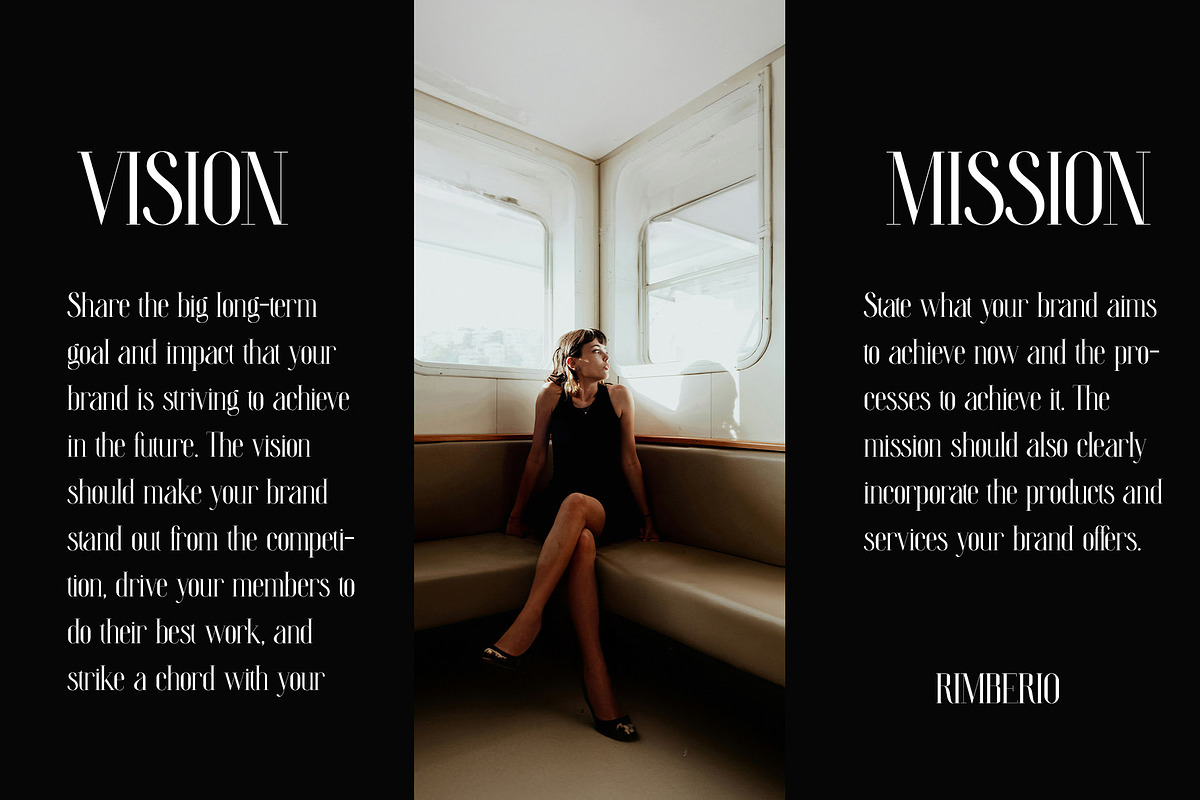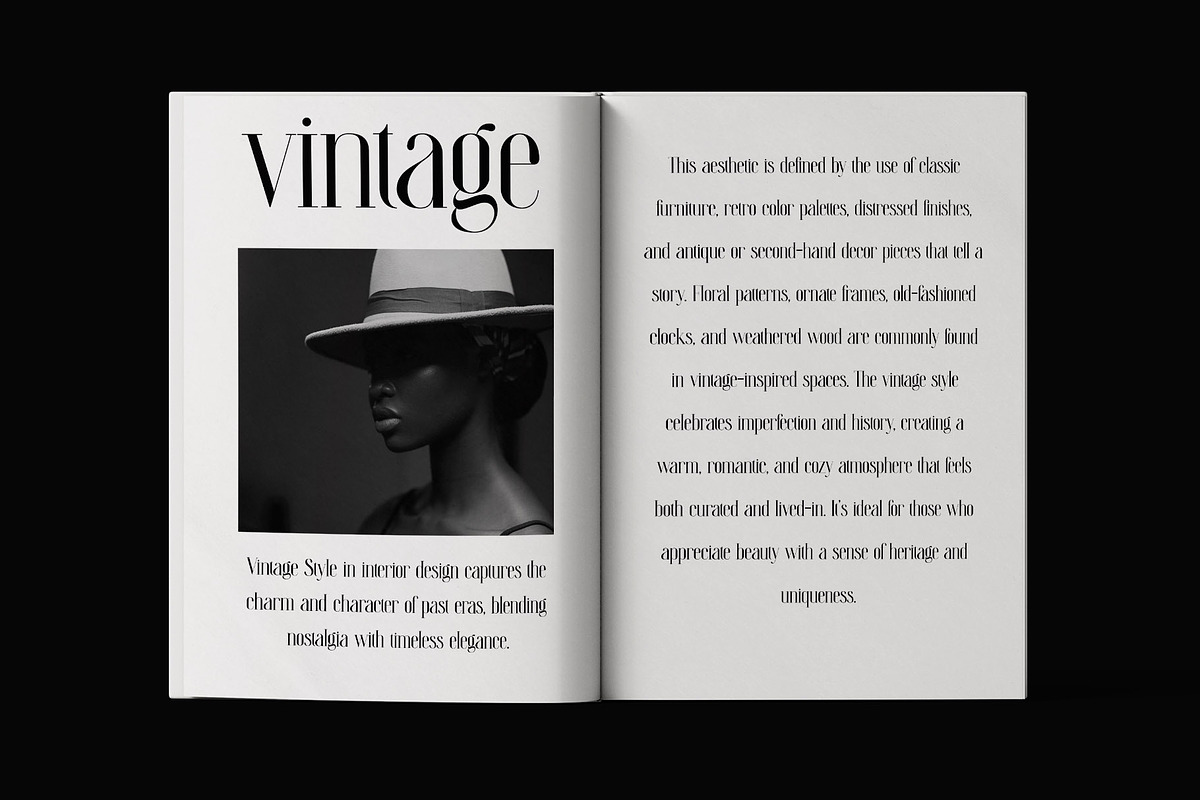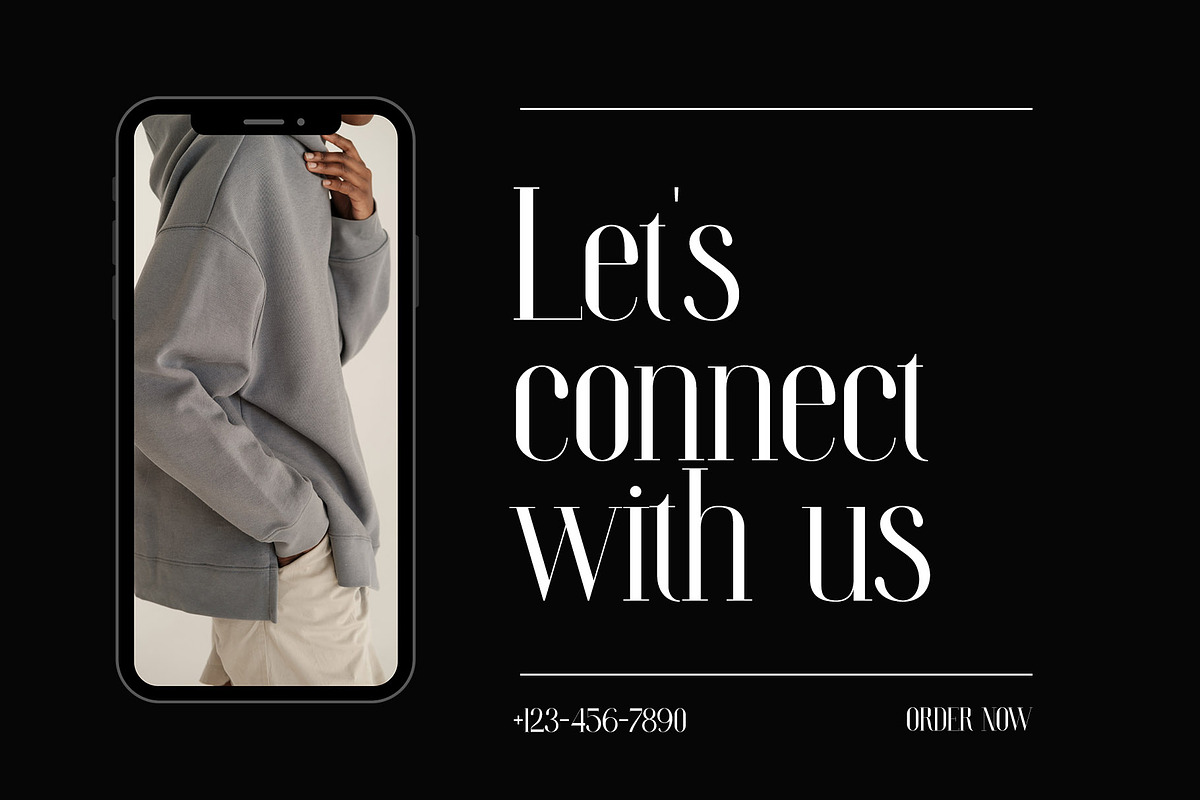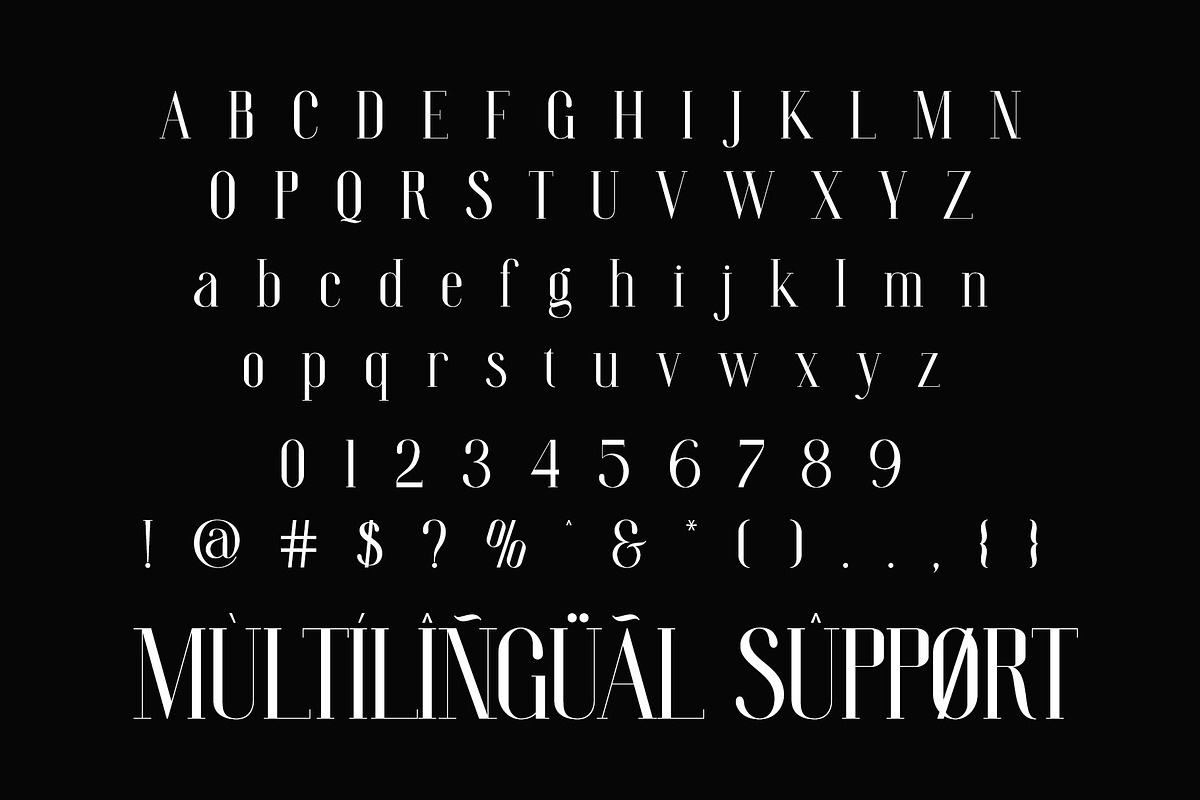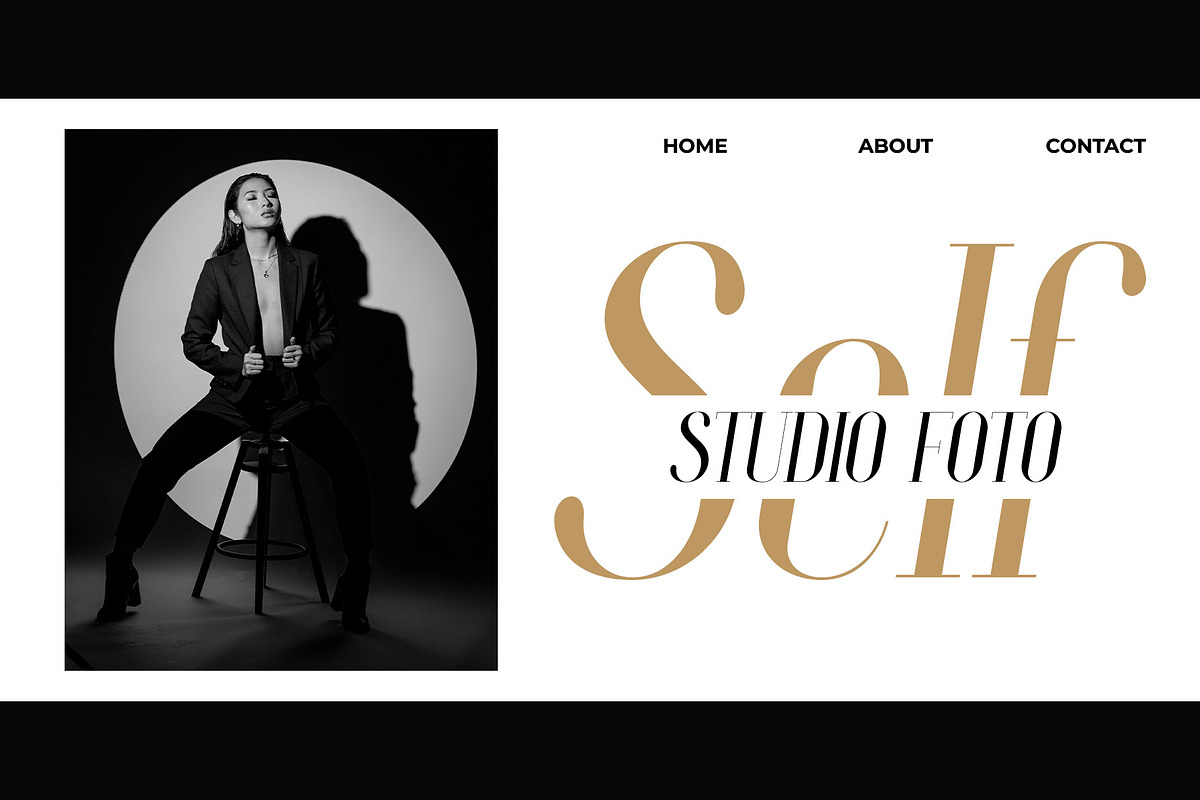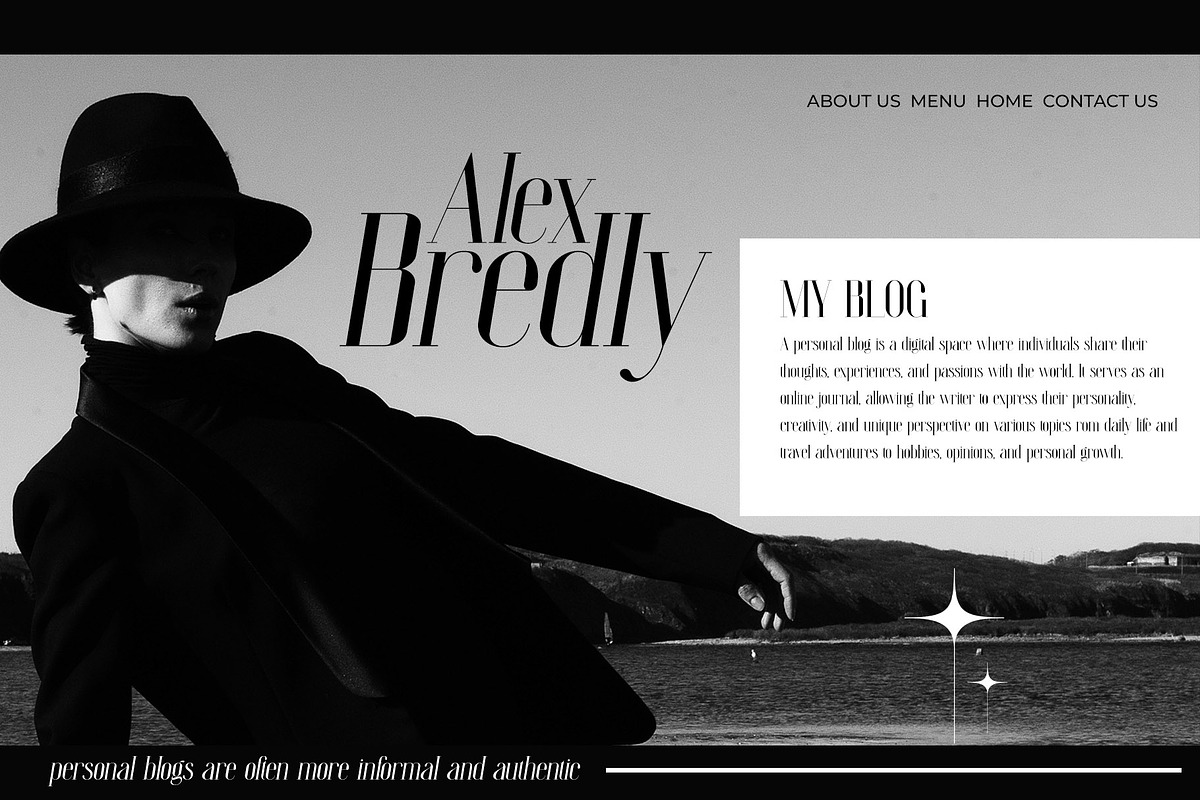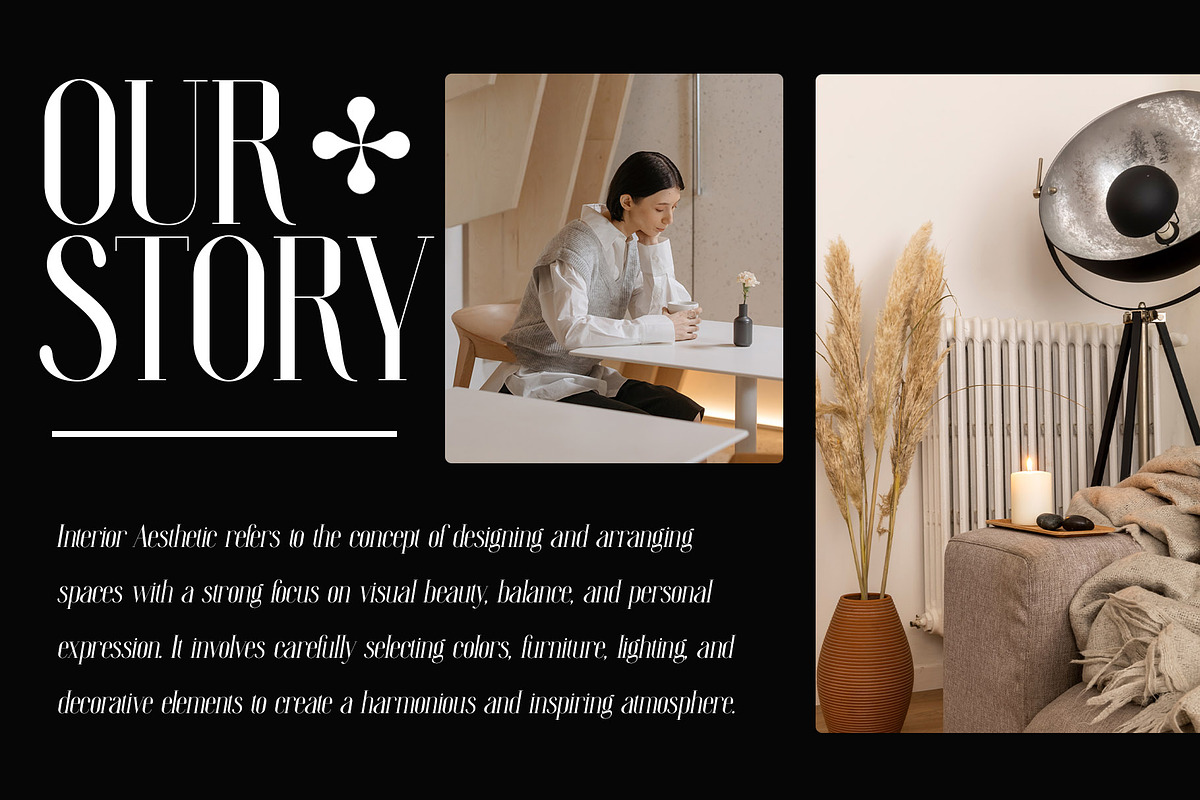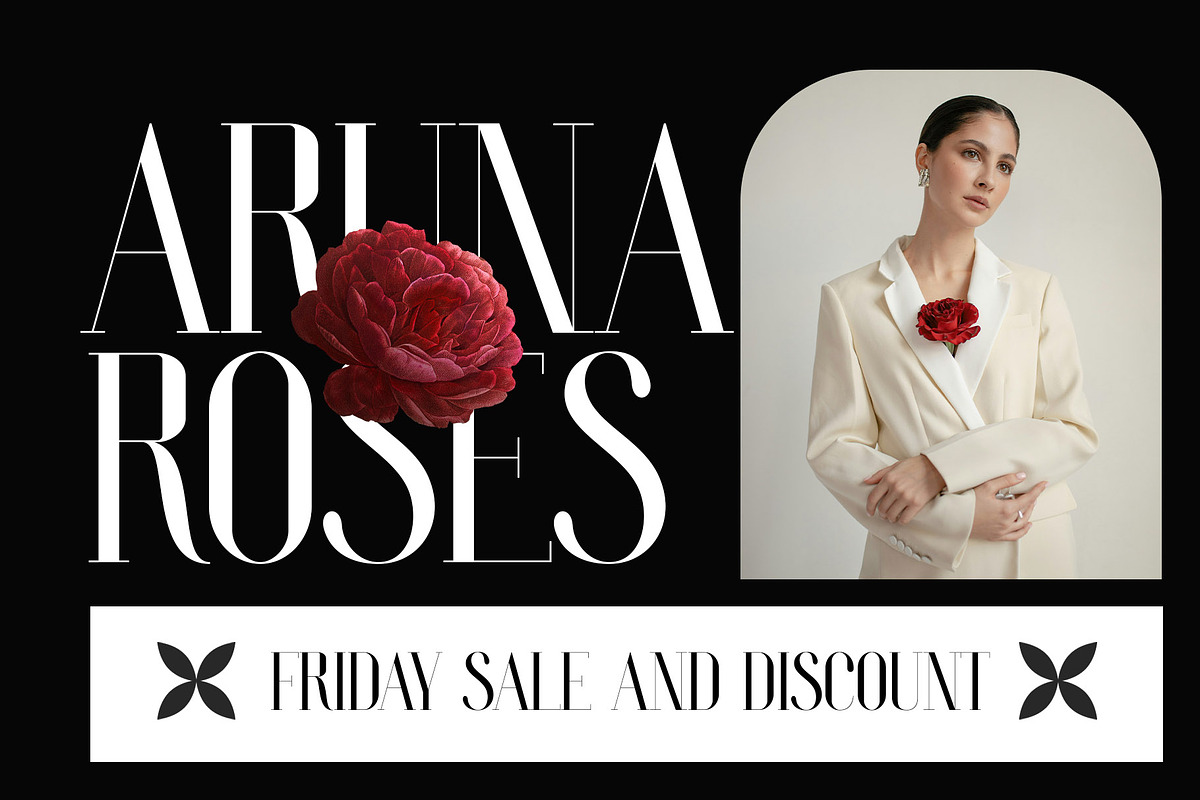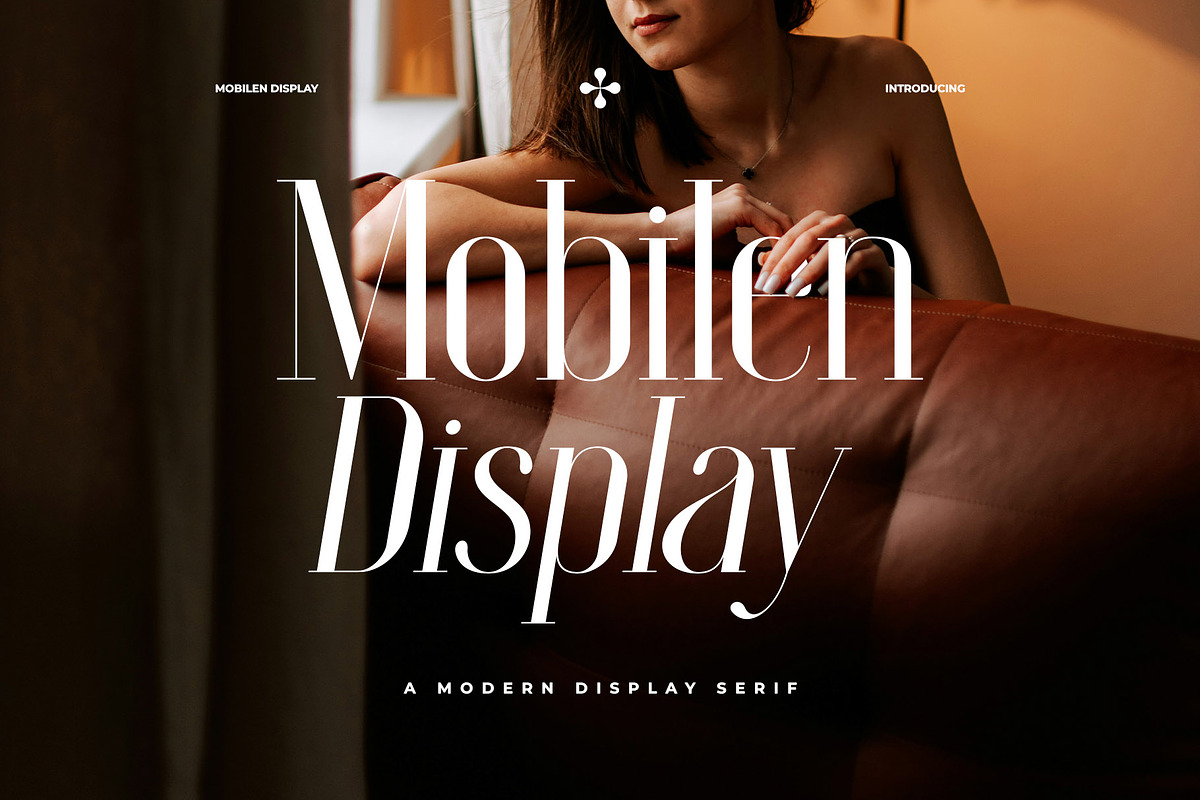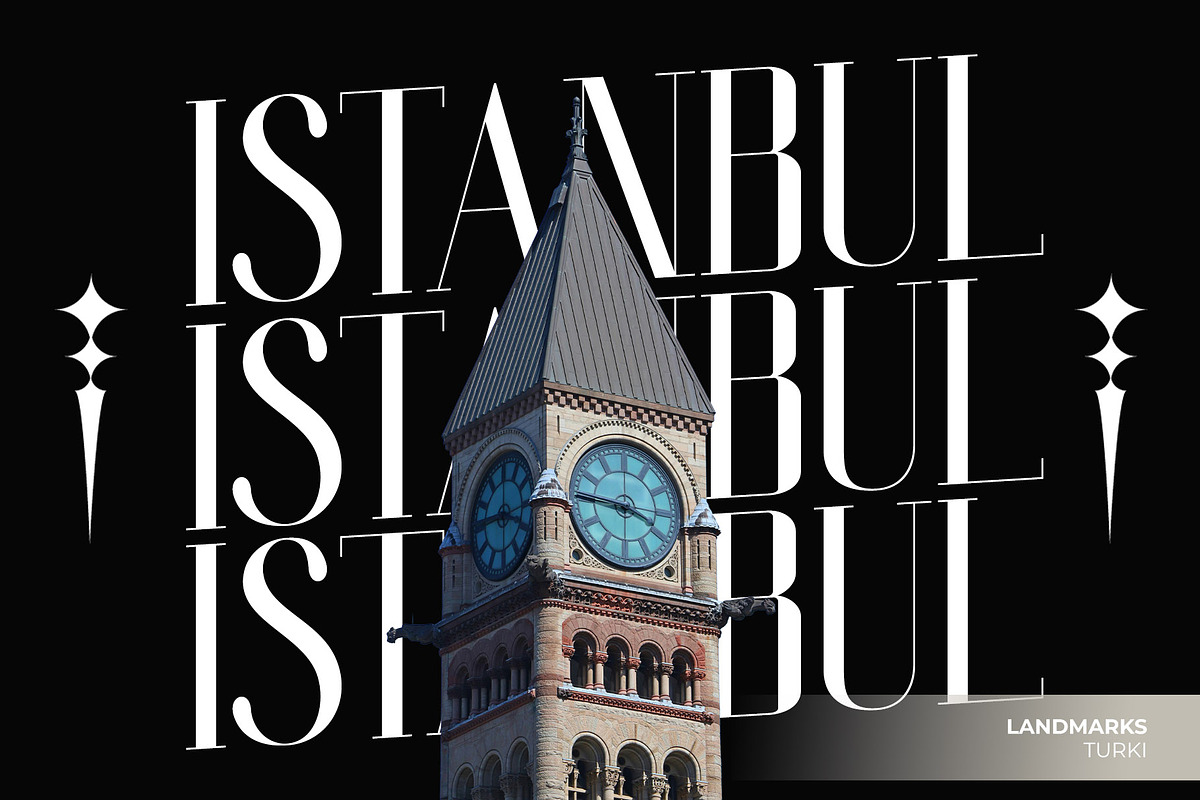
Mobilen Display Modern Display Serif
Mobilen Display is a modern and striking font designed to deliver a unique typographic experience, featuring two distinct styles— Serif—each with an expressive Italic variant. This font combines elegance and energy, offering versatile options for designers seeking both readability and visual appeal.
- Mobilen Display Serif: The serif style of Mobilen Display brings a touch of classic elegance with its beautifully crafted serifs. It strikes a balance between formality and modernity, making it perfect for designs that need a professional yet stylish edge. The Italic variant of the serif style adds an artistic, dramatic flair, enhancing the font's fluidity and elegance without sacrificing its authoritative presence.
Mobilen Display is the perfect font for a wide range of design projects, from branding to digital media. With its two main styles and italic variants, it provides creative flexibility and the ability to craft captivating designs with a glowing, distinctive touch.